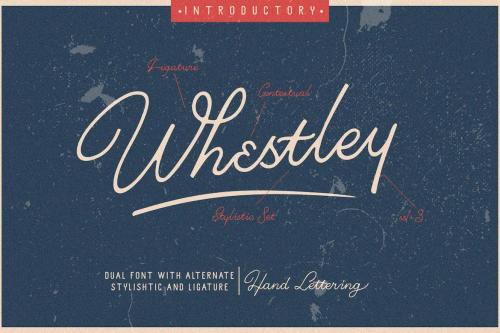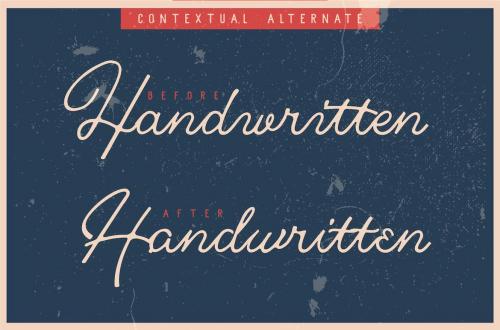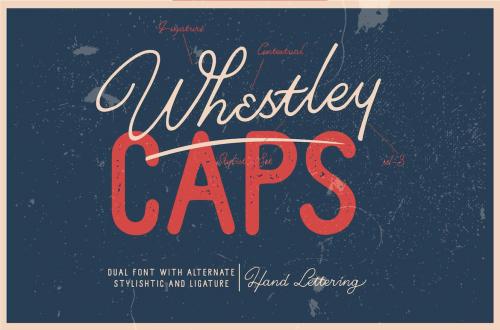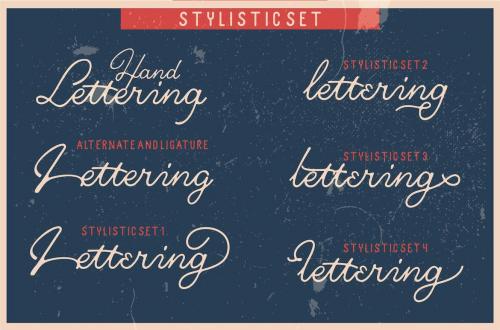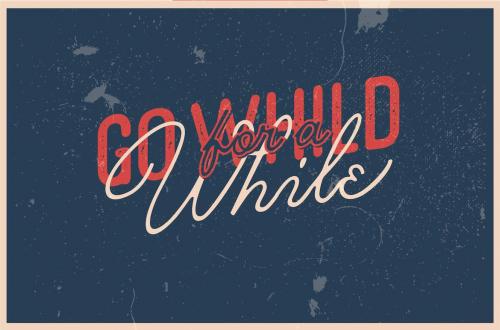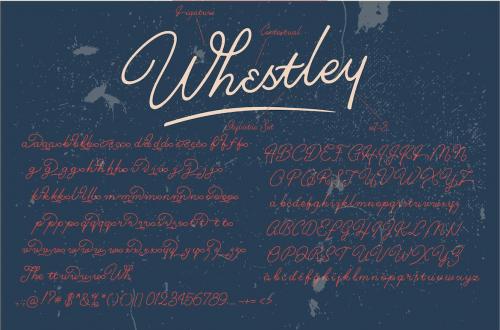
沃思利字体
whestley font
On this occasion we present a new font with the name "whesley's" which consists of two different font types, this font theme is handleting style, vintage handdrawn. very suitable to add nuance in your design
FEATURE Whesley:
Uppercase
Lowercase
Numeral
Funcional
Alternate
Stylishtic
Ligature
FEATURE Whesley CAPS:
Uppercase
Lowercase
Numeral
Funcional